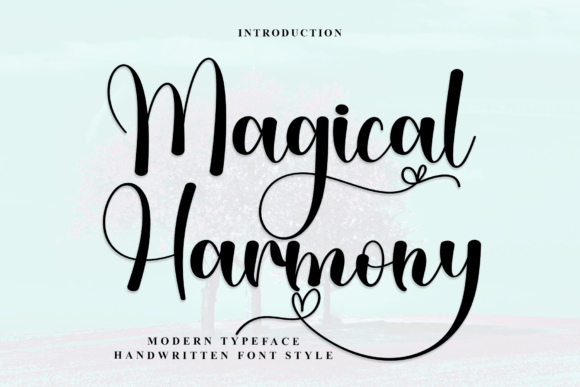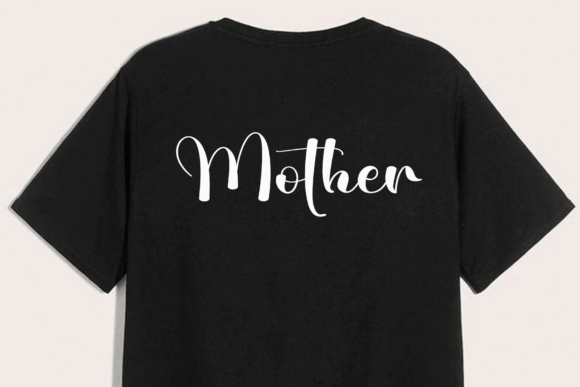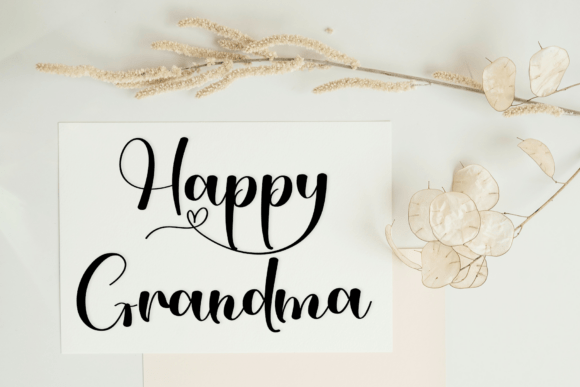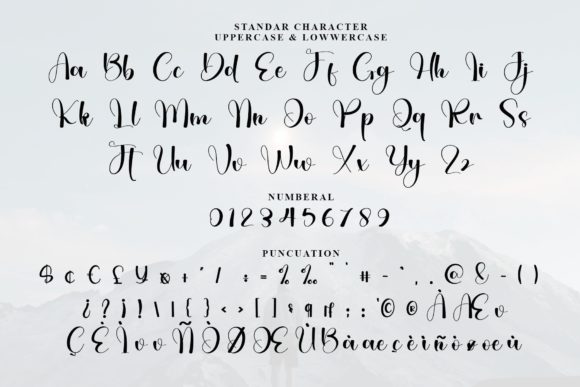
About the Magical Harmony Font
Meet Magical Harmony Font, a stunning font that brings a touch of elegance and professionalism to any design. Magical Harmony is a sweet and cursive handwritten font. This gentle font will look gorgeous on a variety of design ideas. It will add a joyful and romantic touch to each of your projects! Perfectly fit for branding, logo, wedding things, greeting cards, fashion, lookbook, marketing promotion, and any time you want your design to look fancy and elegant but still casual.
Magical Harmony’s delicate, cursive style is ideal for headlines, short text blocks on invitations or greeting cards, and logo designs requiring a touch of romantic charm. It excels in branding for businesses emphasizing femininity, handcrafted goods, or events like weddings. However, its low x-height and connected script make it unsuitable for body text or UI elements; readability suffers in longer passages.
Pairing it with a clean sans-serif like Montserrat or a geometric sans-serif like Futura provides a strong contrast and modern balance, grounding the script’s whimsicality. For a more traditional feel, a classic serif like Garamond or a slightly more playful serif like Playfair Display offers elegant support.
The font’s overall personality is best described as softly elegant and friendly; it evokes a sense of warmth and approachability without sacrificing sophistication. Avoid using it where a bolder or more assertive presence is required.